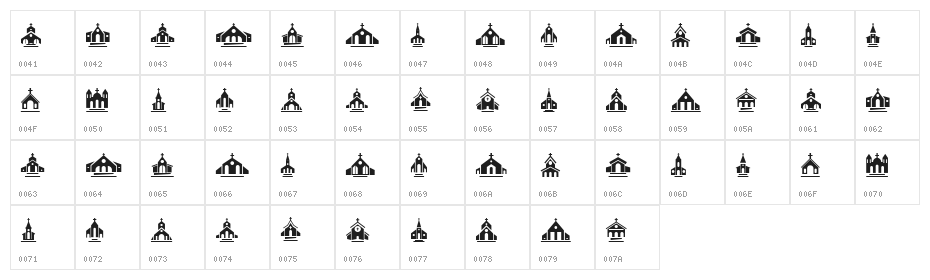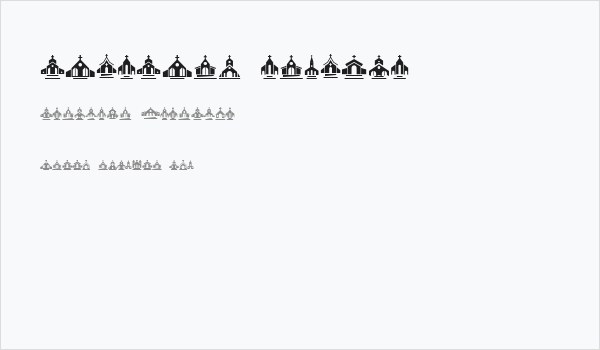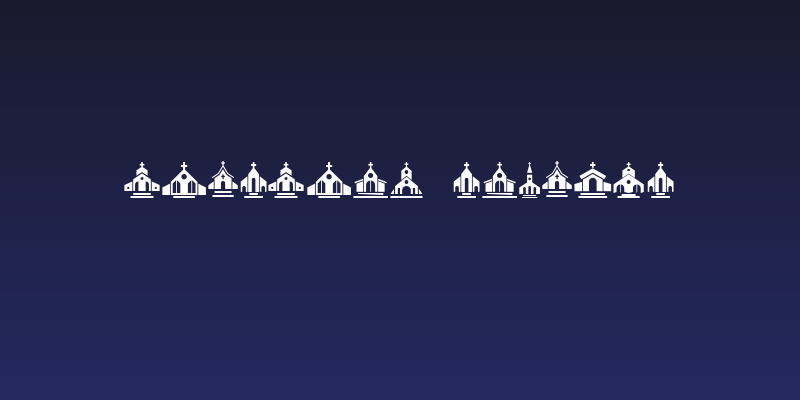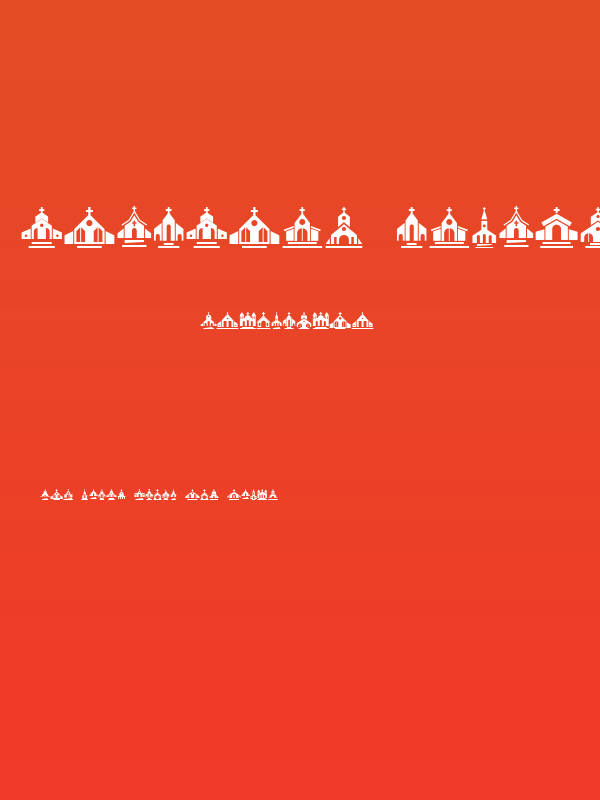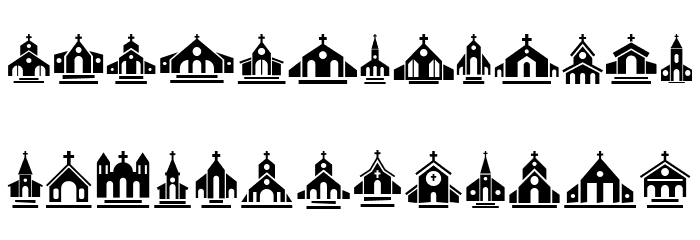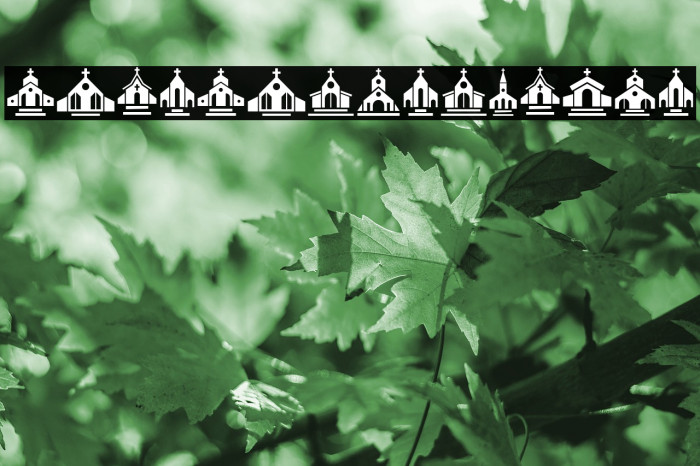
Churches Regular Font
Churches Regular Description
A decorative icon set featuring various stylized church silhouettes, each glyph representing a different church design with bold, geometric shapes and strong contrast.
| Overall Style | Decorative, Thematic |
| Use Case | Icons, Logos, Themed headlines, Visual accents |
| Proposed Projects | Religious event posters, church bulletins, themed invitations, educational materials, iconography, branding for faith-based organizations. |